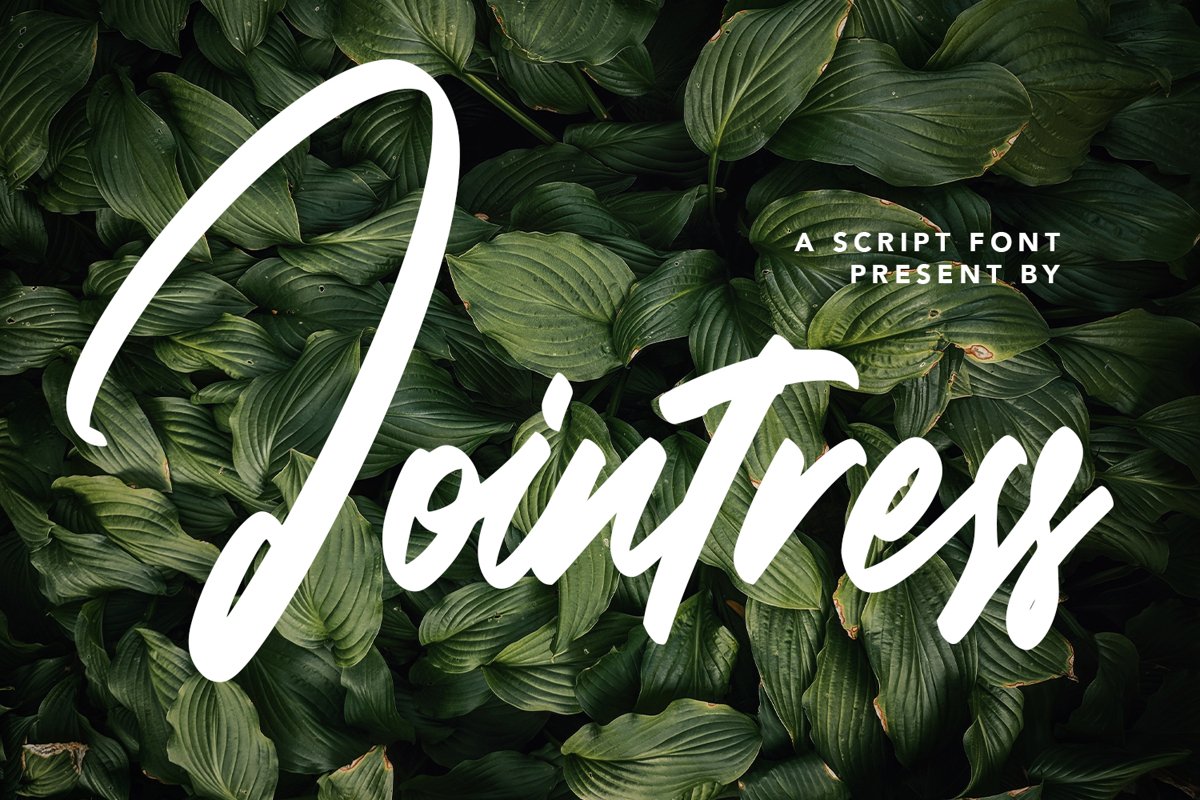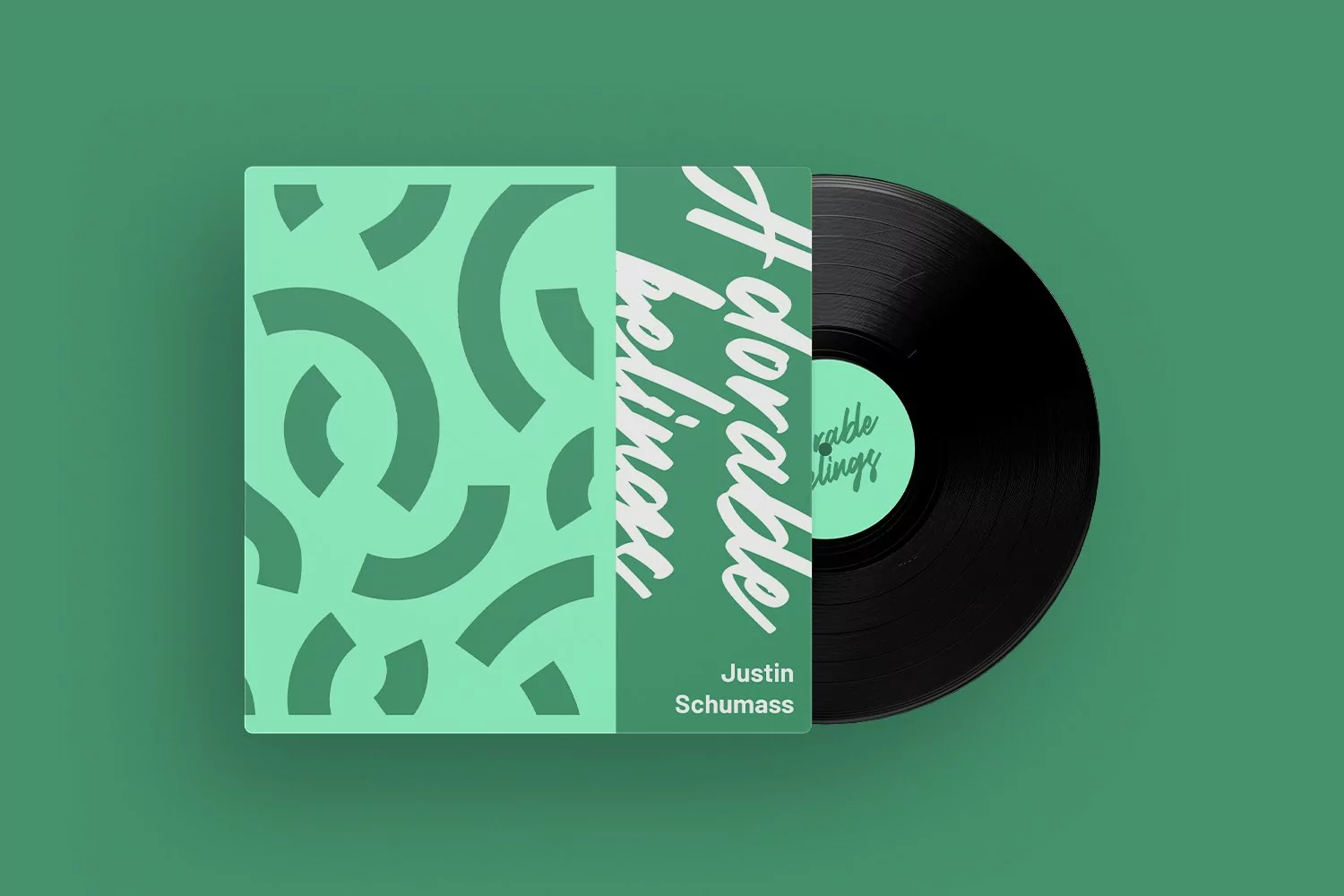
Jointress - Script Font that contain lowercase, uppercase, symbol, and also support multi language. There’s a lot ligatures in this font. This Font also comes with ligatures, alternates and many more. this font suitable for fashion, branding, catalog and other design what you want.
Jointress